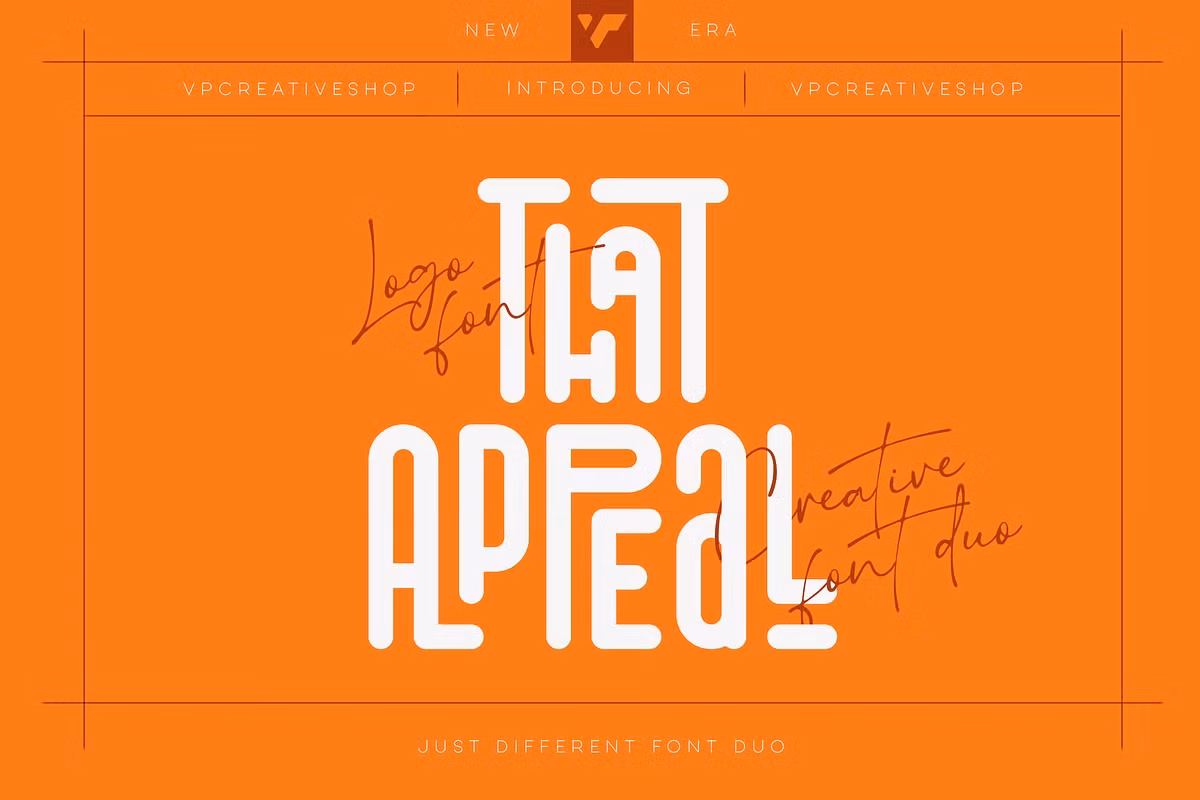
Please note, you must purchase this font for commercial use. However, you can easily download That Appeal - Creative Font Duo Free Download for personal use and testing purposes. That Appeal - Creative Font Duo is an artistic and versatile font pair that combines a charming script with a clean, modern sans-serif. Perfect for logos, branding, social media graphics, invitations, and creative projects, this font duo offers a dynamic balance of elegance and contemporary flair. Whether you're working on a playful brand identity, a chic event invitation, or stylish promotional materials, That Appeal - Creative Font Duo Free Download will bring your designs to life. Download That Appeal - Creative Font Duo Free Download today and explore its full potential before opting for a commercial license.